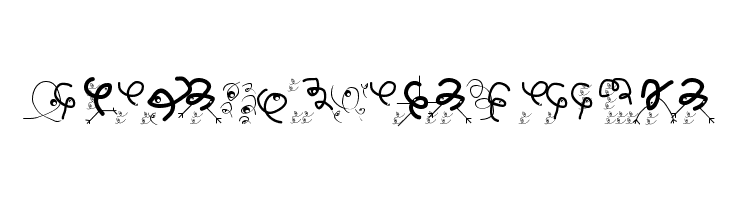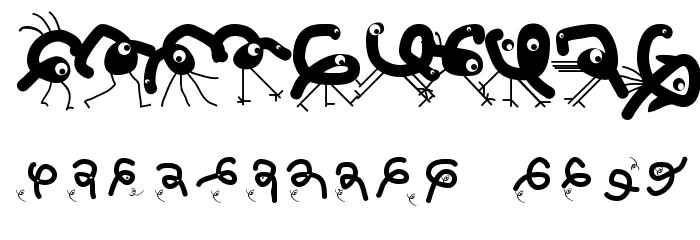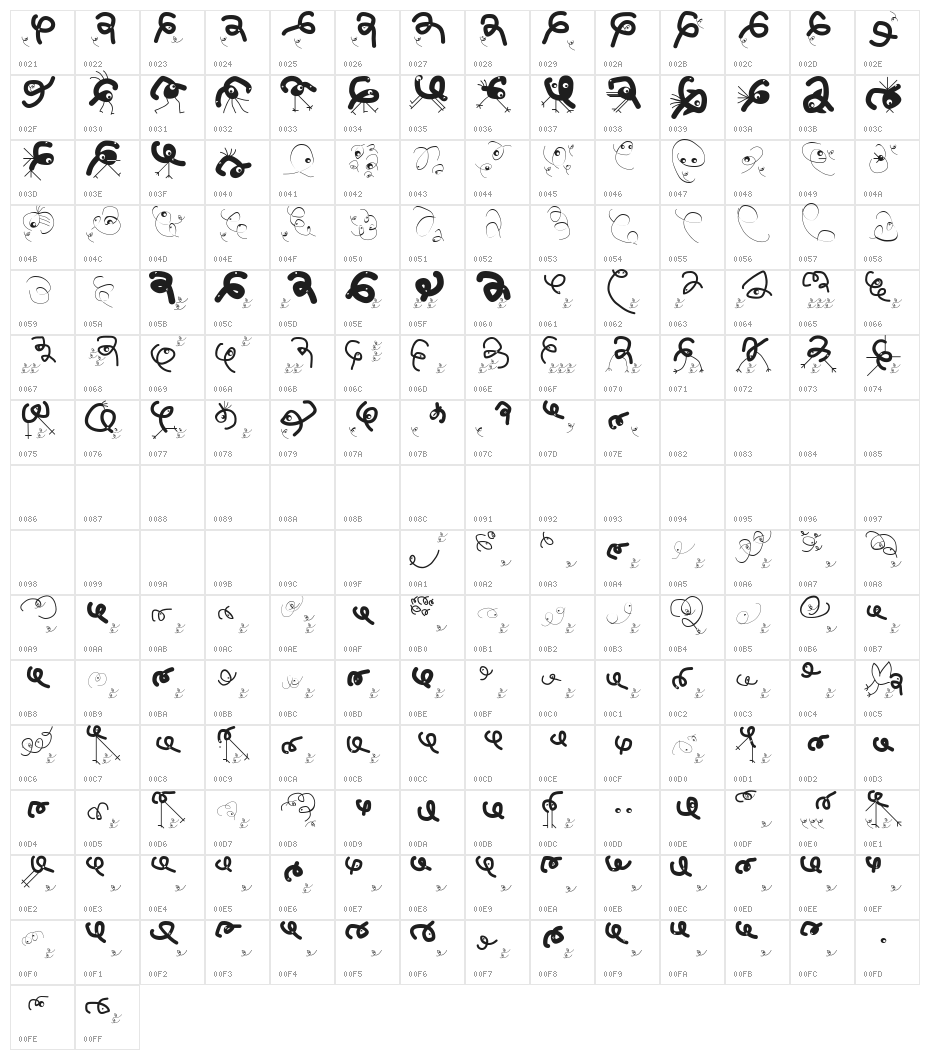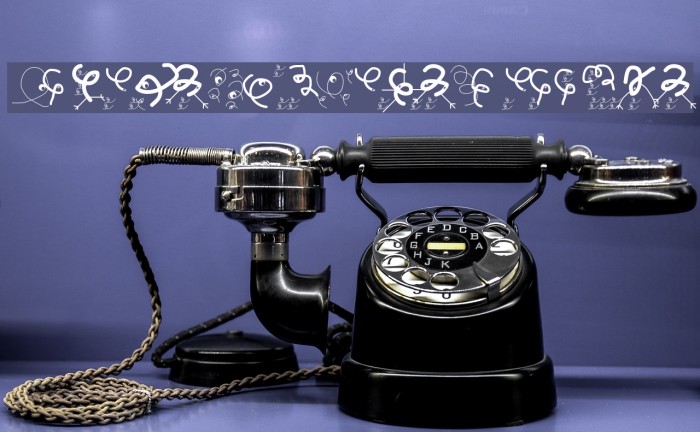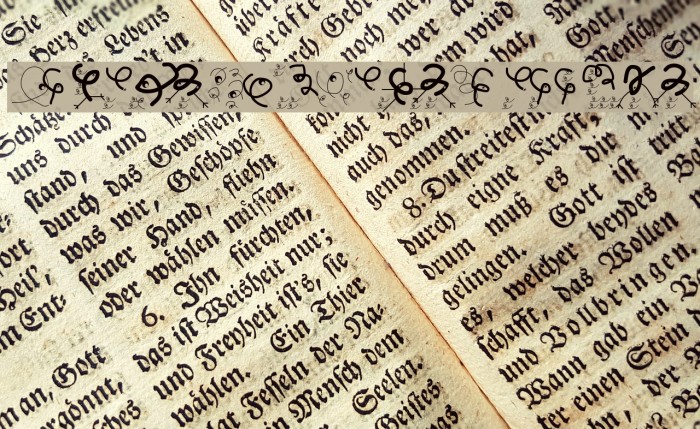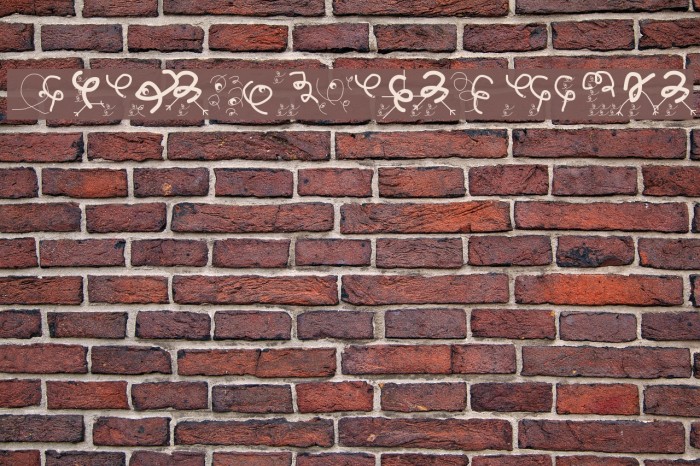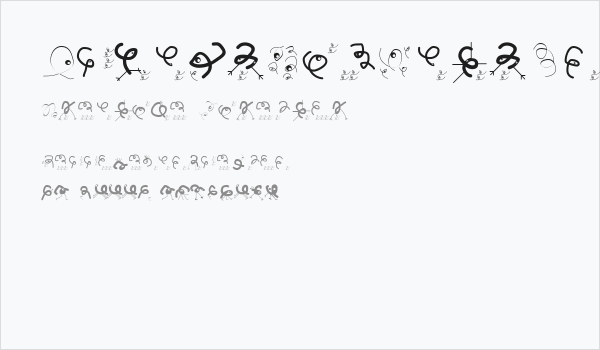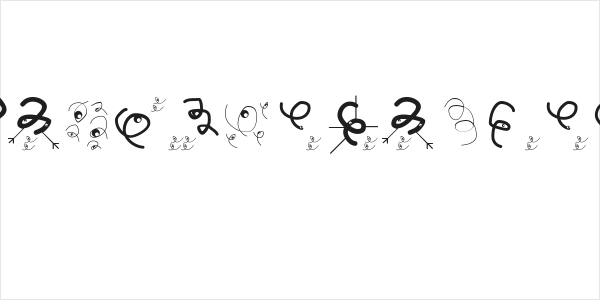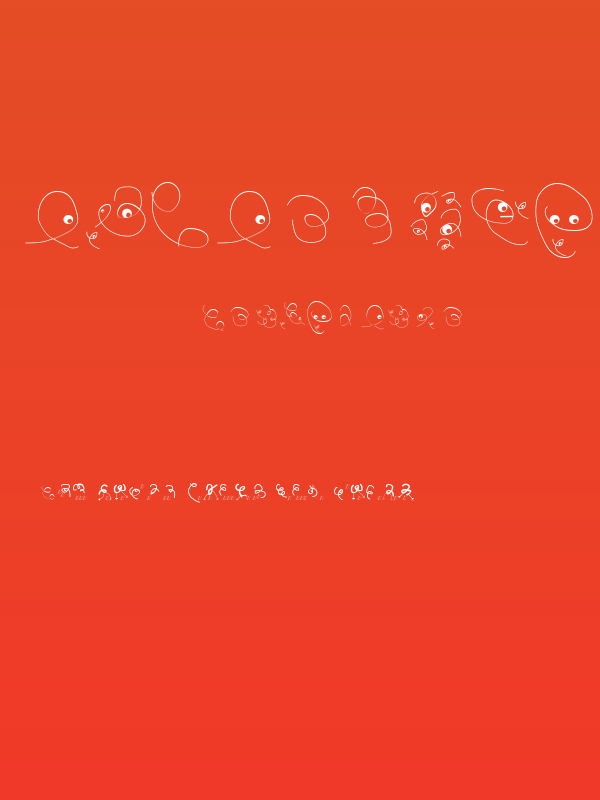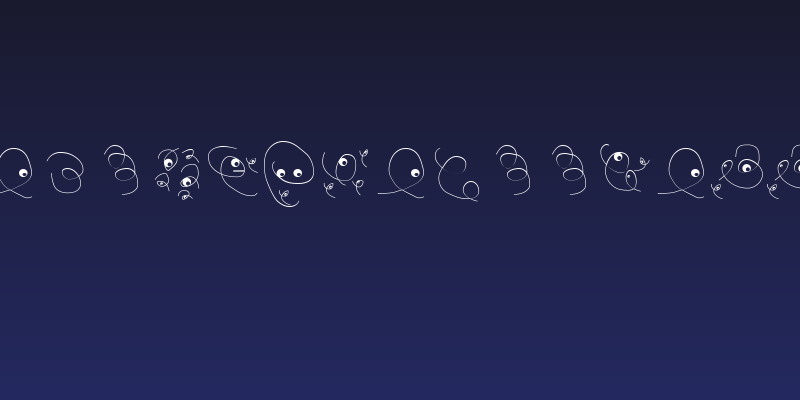
AlwaysBigEatsSmallers Font
AlwaysBigEatsSmallers Description
This is a playful and whimsical font that features characters with eyes and limbs, giving each letter a lively and animated appearance. The design incorporates elements of humor and creativity, with each character seemingly interacting with the others. The strokes are varied, with some letters having thicker lines, adding to the dynamic and engaging style. This font is highly decorative and not suited for traditional text but rather for artistic and creative projects where a fun and unique visual impact is desired.
| Overall Style | Playful, Whimsical, Creative |
| Use Case | Logos, Posters, Creative Projects |
| Proposed Projects | Ideal for children's books, playful posters, creative branding, and any project requiring a fun and engaging visual style. |